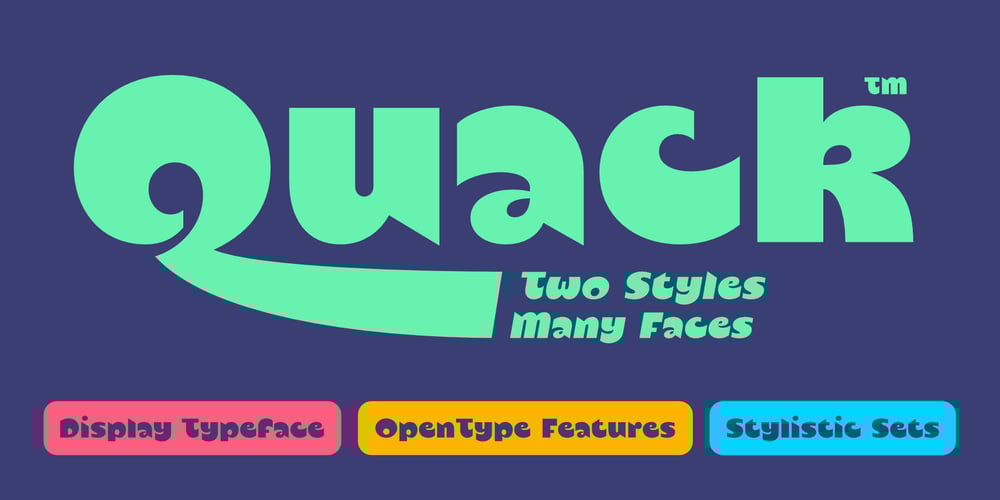
Quack Font Family was designed by Marcus Sterz and published by FaceType. Quack contains 2 styles and family package options. Quack is a super-bold display font, providing a vast range of alternates (see stylistic sets) whoch makes it amazingly versatile for branding tasks. It covers not only Latin but also Cyrillic and Greek.